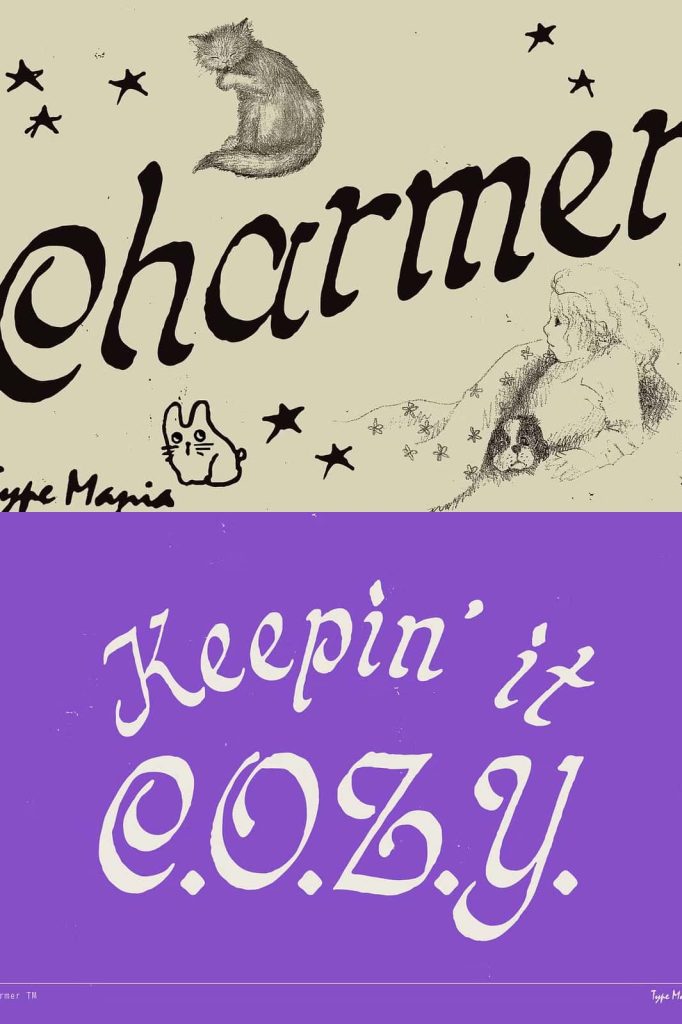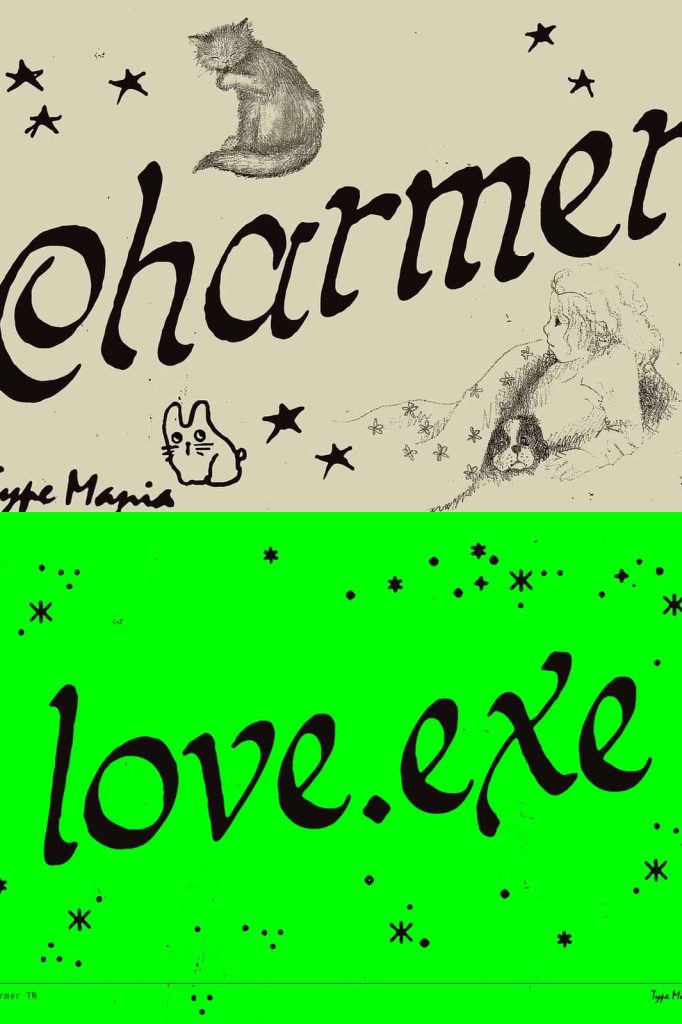
Charmer TM: A Homebaked Calligraphic Font with Personality
Charmer TM is a handcrafted calligraphic font designed to feel personal, expressive, and unapologetically human. Inspired by handwritten lettering and casual brush strokes, this typeface delivers warmth and individuality in every character. It carries the spirit of creativity made at home, where ideas flow freely and imperfections become part of the charm.
Rather than aiming for rigid precision, Charmer TM celebrates movement and rhythm. Each letter connects naturally, creating a smooth handwritten flow that feels alive. This makes the font especially suitable for projects that want to communicate authenticity, passion, and creative confidence.
A Calligraphic Style That Feels Handmade
The defining feature of Charmer TM is its homebaked calligraphic style. The strokes vary in thickness, mimicking the natural pressure of a pen moving across paper. This variation adds depth and energy, giving text a sense of motion and personality that digital fonts often lack.
Charmer TM strikes a balance between readability and expression. While the lettering feels relaxed and informal, it remains clear and legible across different sizes. This balance allows designers to use the font both as a bold visual element and as a complementary accent within larger compositions.
Designed for Personal Expression
Charmer TM thrives in projects that value individuality. It feels like something written in a notebook, sketched late at night, or designed in a small bedroom studio with big dreams. This emotional quality makes it perfect for creatives who want their work to feel genuine rather than polished to perfection.
The font communicates enthusiasm and confidence without trying too hard. It invites the viewer in, creating a friendly and approachable tone that resonates with audiences who appreciate authenticity.
Perfect for Indie Bands and Music Branding
Charmer TM is an excellent choice for independent musicians, bedroom pop bands, and emerging artists. It captures the energy of music created outside the mainstream, where creativity matters more than conformity. Album covers, band logos, posters, and merchandise benefit from its expressive and informal style.
When used in music branding, Charmer TM helps establish a visual identity that feels personal and memorable. It supports storytelling and emotional connection, allowing fans to feel closer to the artist behind the work.
Versatile for Creative and Lifestyle Projects
Beyond music, Charmer TM adapts well to a wide range of creative applications. It works beautifully for posters, zines, social media graphics, apparel designs, and personal branding. The font adds character to headlines, short phrases, and display text where personality takes center stage.
Charmer TM also pairs well with clean sans-serif or minimalist serif fonts. This contrast allows designers to combine structure with expression, making layouts feel balanced while still maintaining a strong creative edge.
Easy to Use Across Print and Digital Media
Charmer TM performs reliably across both print and digital platforms. Its calligraphic flow remains consistent whether displayed on screen or printed on physical materials. This makes it a dependable choice for projects that move between online promotion and tangible products.
The font maintains its visual impact at various sizes, ensuring that your message remains clear while still feeling expressive and handcrafted.
Why Choose Charmer TM?
Charmer TM is more than a calligraphic font. It represents creativity made with passion, honesty, and personal vision. If your project aims to feel human, expressive, and slightly rebellious, this font delivers exactly that energy.
By choosing Charmer TM, you give your words a voice that feels written, not manufactured. It helps your design stand out by embracing character, movement, and emotional connection.